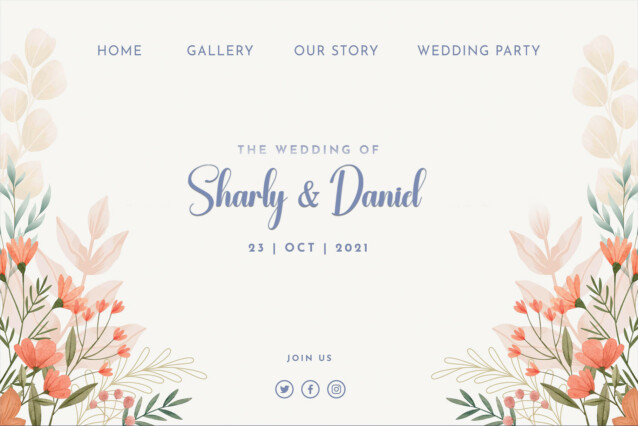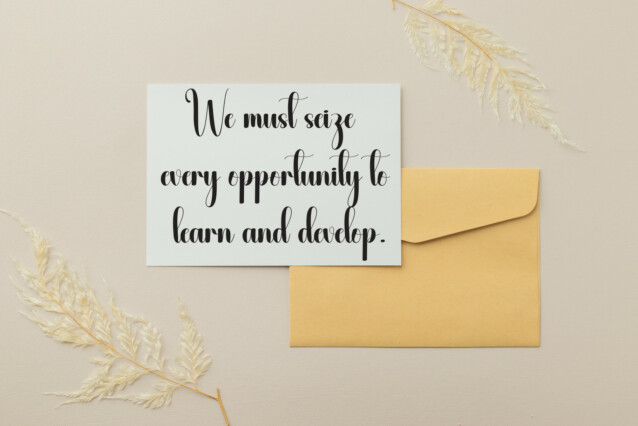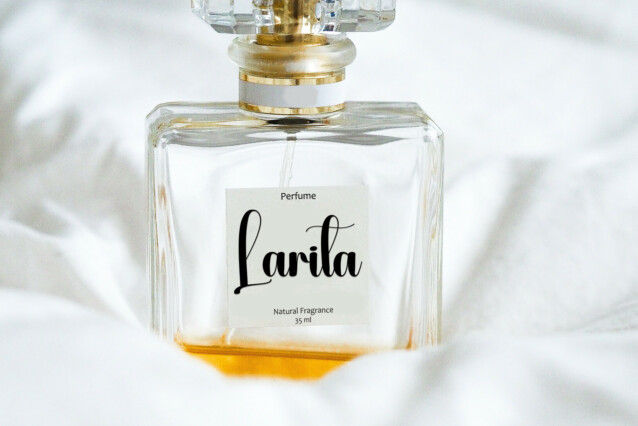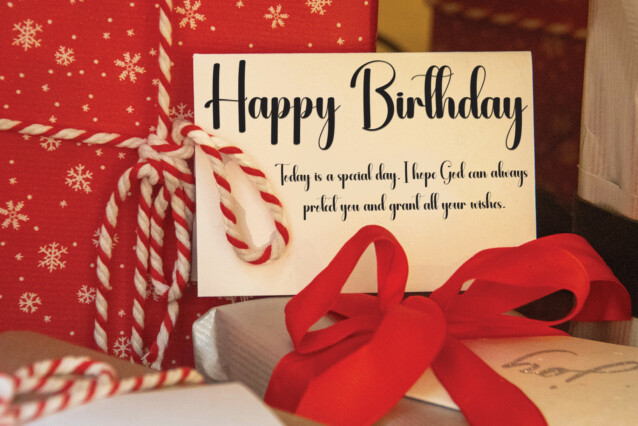
Breaktime Script Font
Breaktime Script Font is a sweet and friendly handwritten display font. Cute and fun, this font is ideal for writing wedding invitations, cards, or any other design that might need a playful touch!